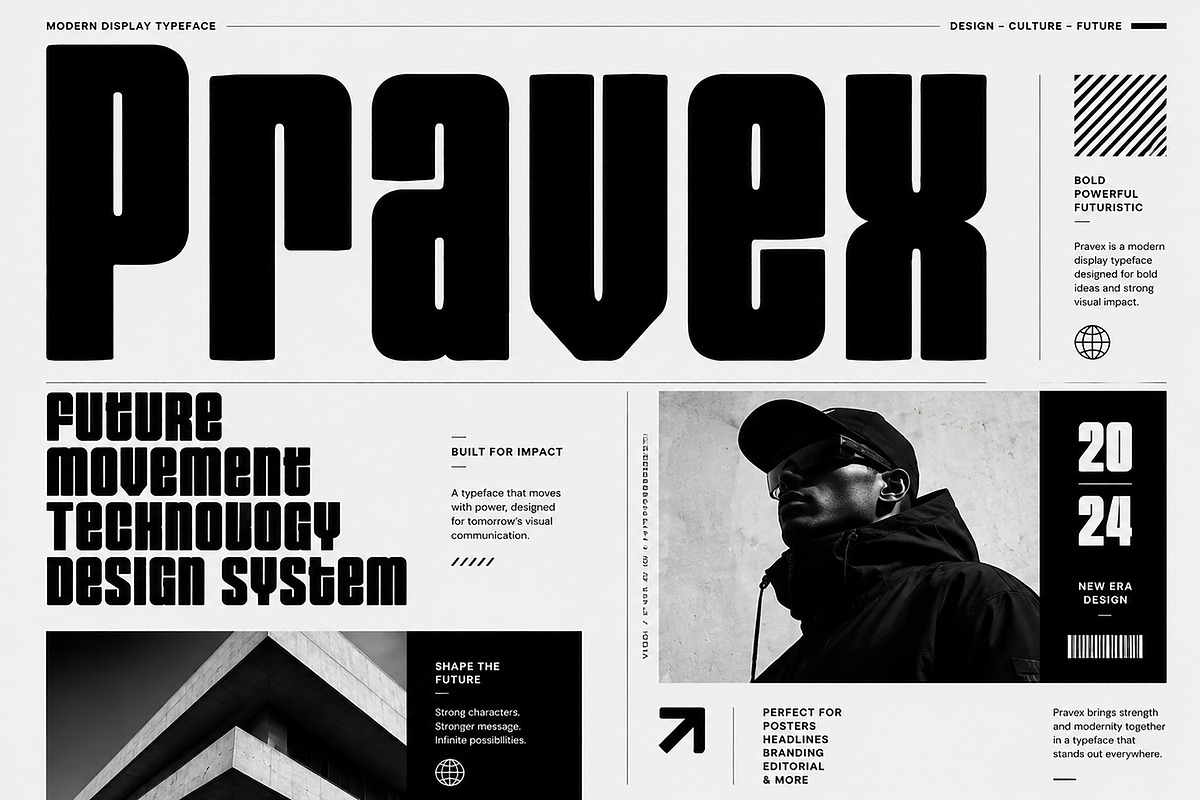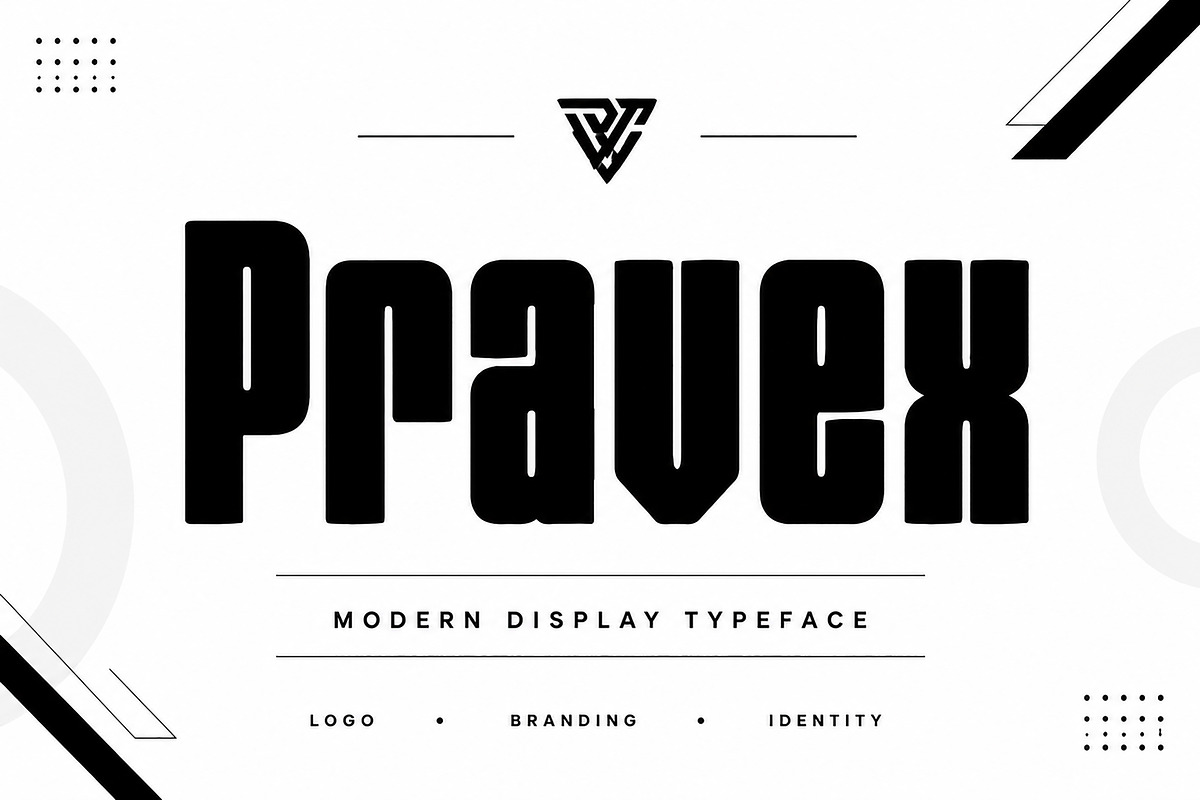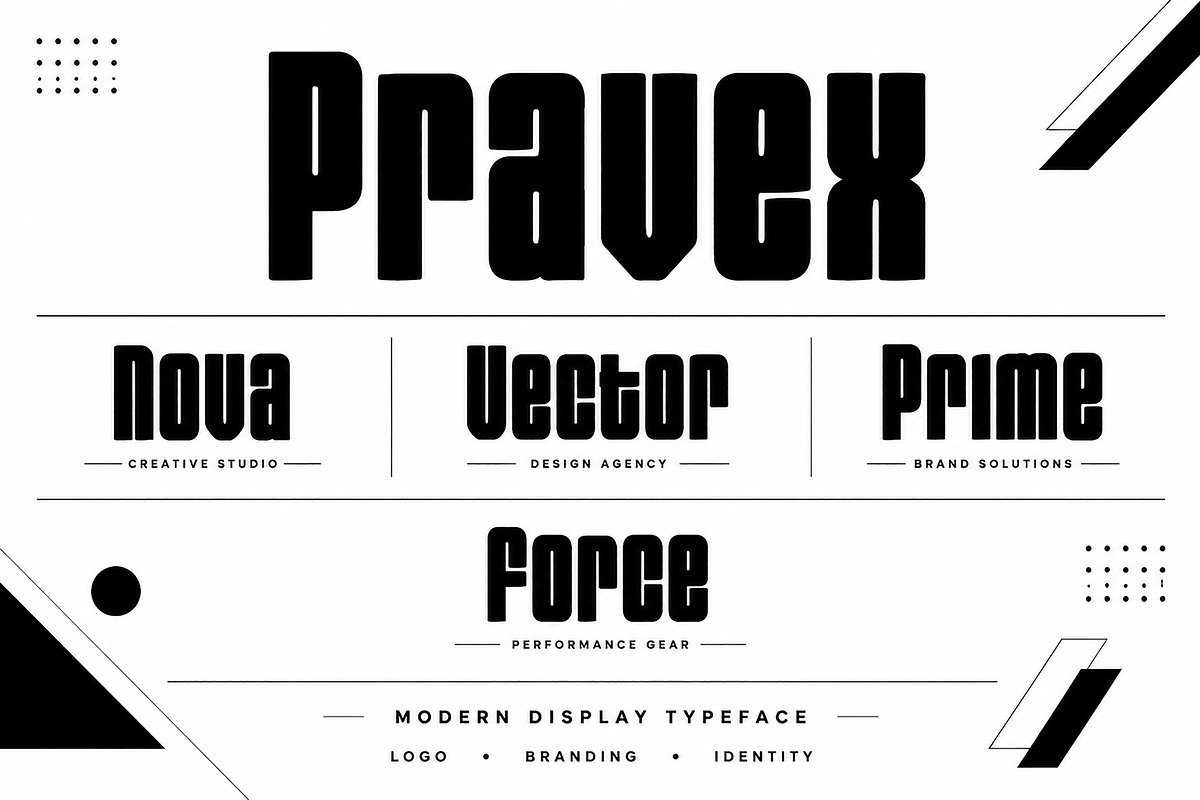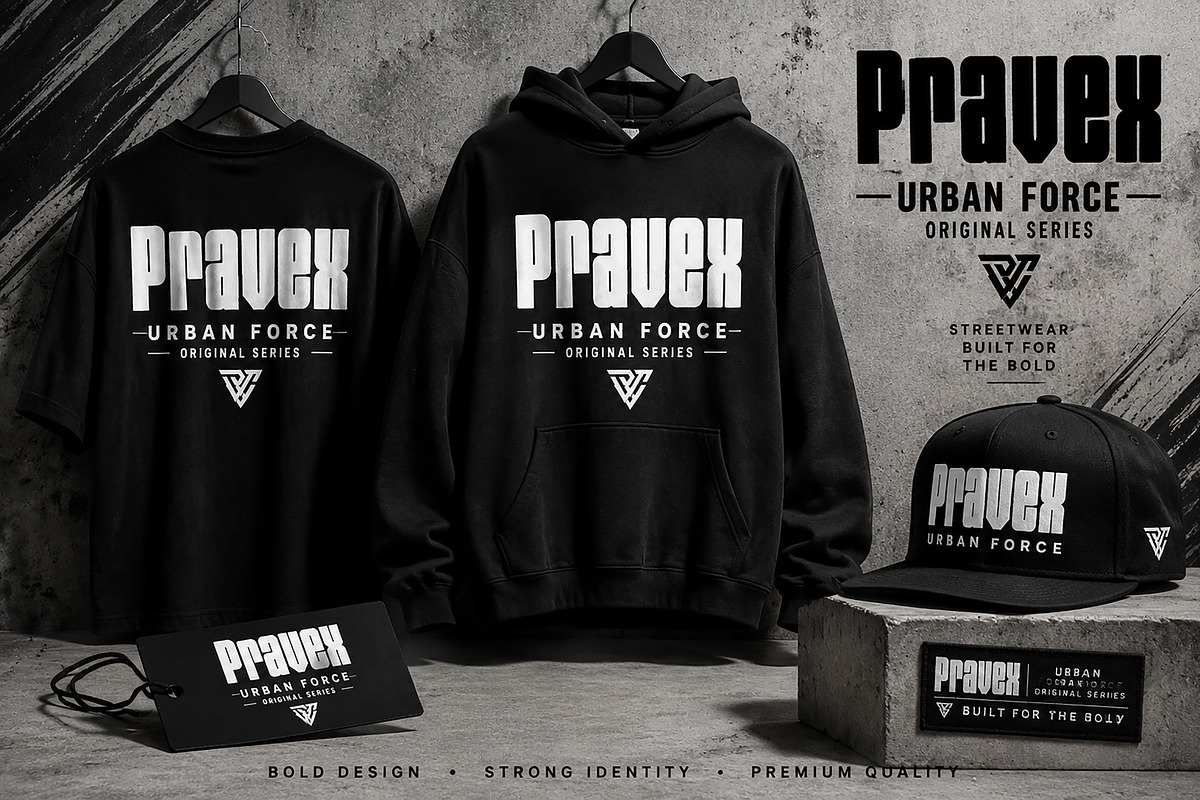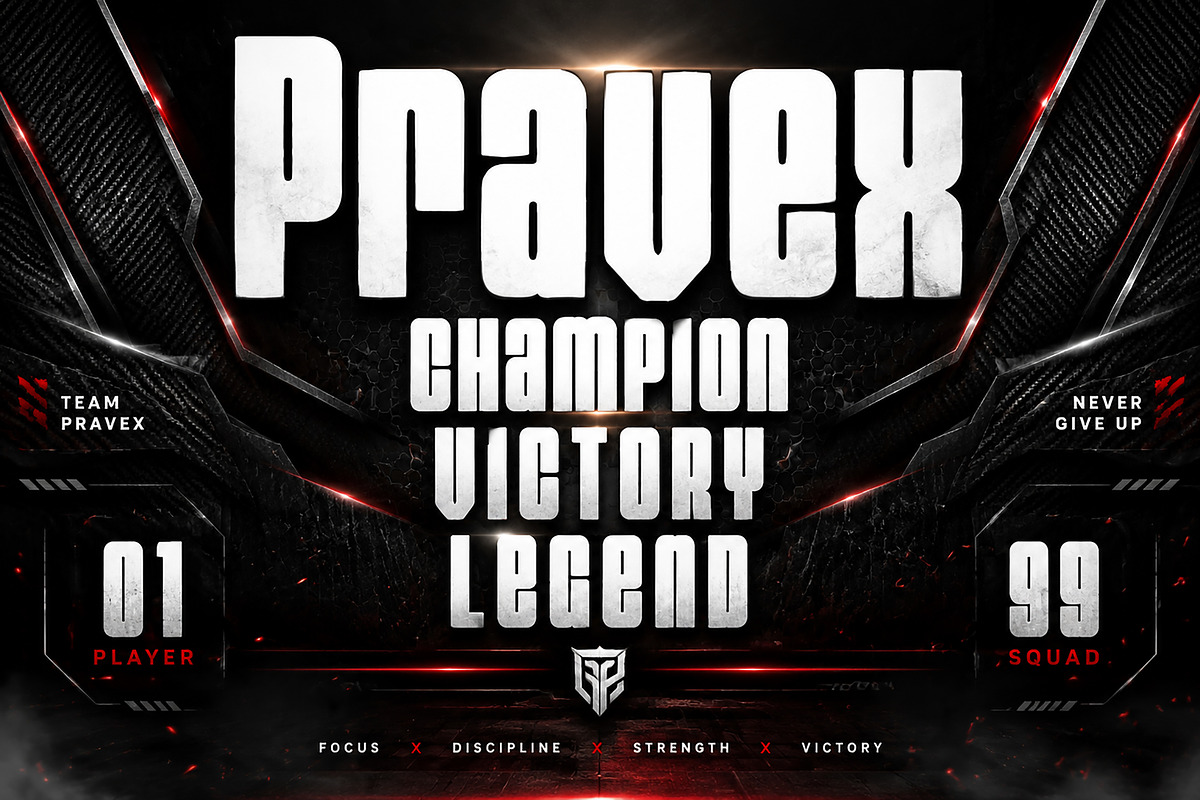
Pravex - Bold Modern Typeface
Description:
Pravex is a bold modern display typeface designed for powerful visual impact. With its strong geometric structure, condensed style, and futuristic appearance, Pravex is perfect for creating eye-catching logos, branding projects, posters, sports designs, apparel graphics, headlines, and editorial layouts.
Designed for designers who need a strong and confident typeface, Pravex brings a professional look to both digital and print projects. Its unique character shapes make it ideal for modern brands, streetwear designs, gaming visuals, and creative campaigns.
Font Type: Display Typeface
• Logo Design
• Brand Identity
• Sports & Esports Graphics
• Streetwear & Apparel Design
• Posters & Flyers
• Magazine Headlines
• Advertising Campaigns
• Packaging Design
• Social Media Graphics
• Creative Typography Projects
✓ Bold Display Typeface
✓ Modern Geometric Style
✓ Strong Condensed Letterforms
✓ Professional Branding Style
✓ High Impact Headlines